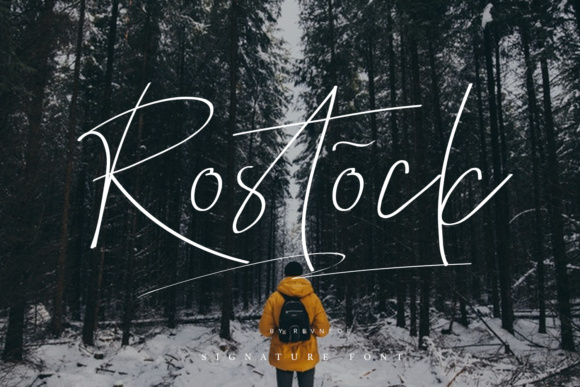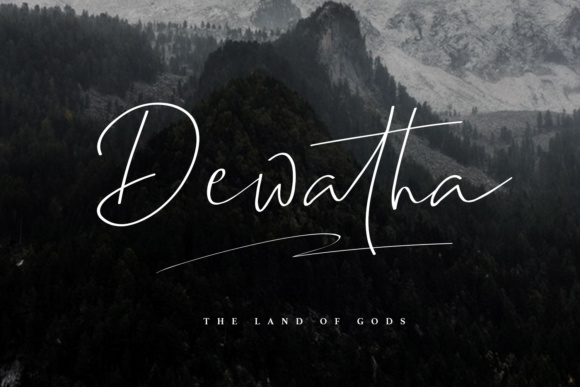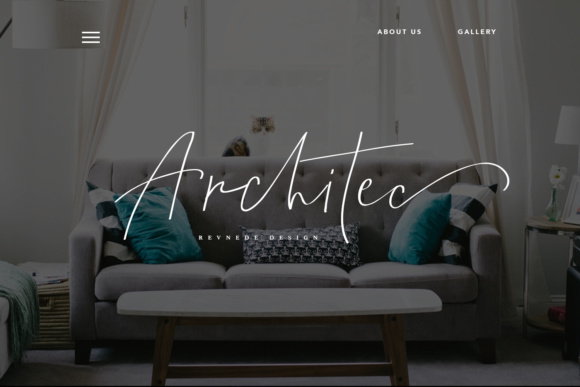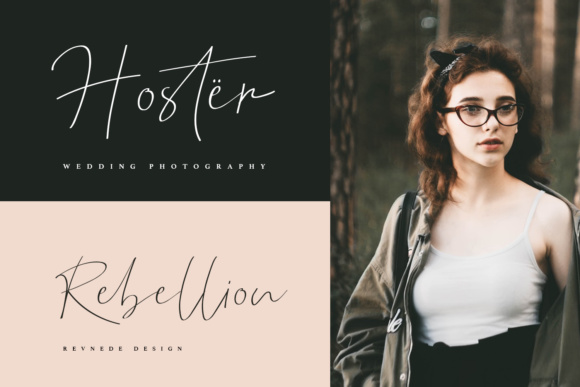
Rostock Duo Font
About Rostock Duo Font
The Rockstone is a classy, contemporary pair of scripts. With its stylish companion, Rostock is offering you a beautiful typographic harmony for a diversity of design projects.
It’s perfect for branding, you won’t get cute, whimsical, funny logos, social media posts, advertisements & product designs with this duo.